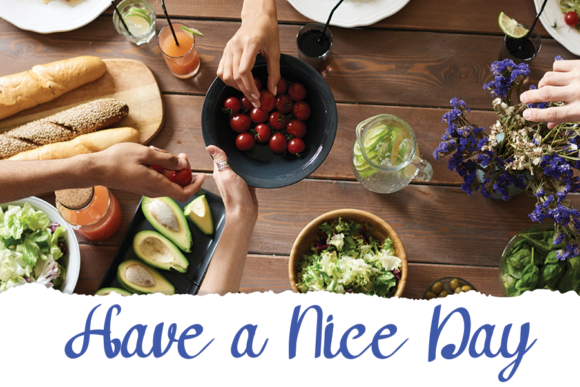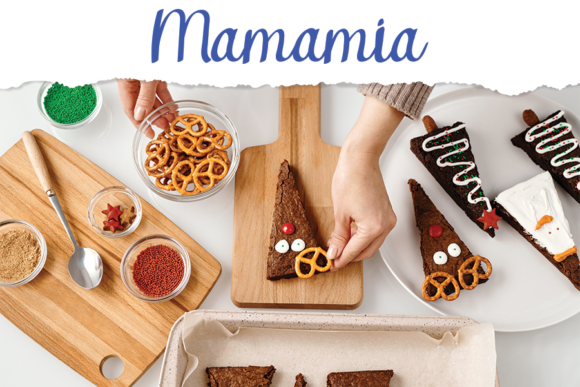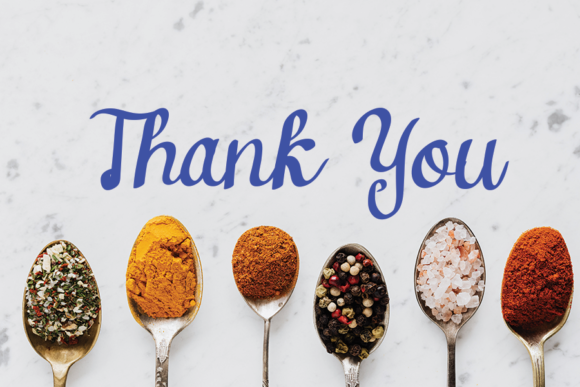
Butter Sweet Font
About Butter Sweet Font
Butter Sweet is a cute and dainty handwritten font that features sweet and delicate swashes. This original look will appeal to a wide range of crafty ideas, from letterheads and titles, to stationery.